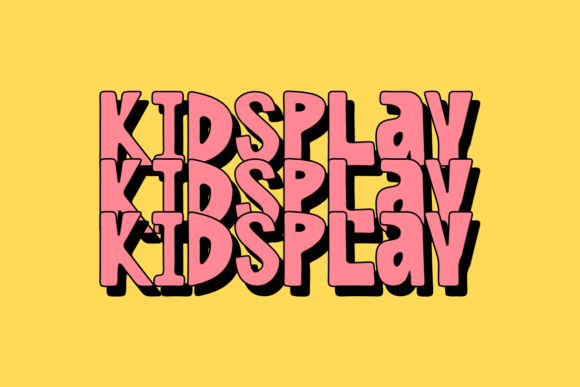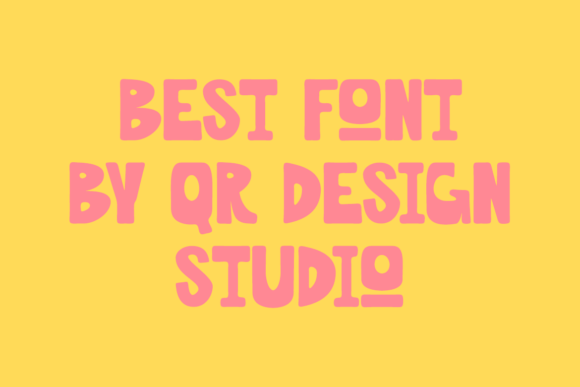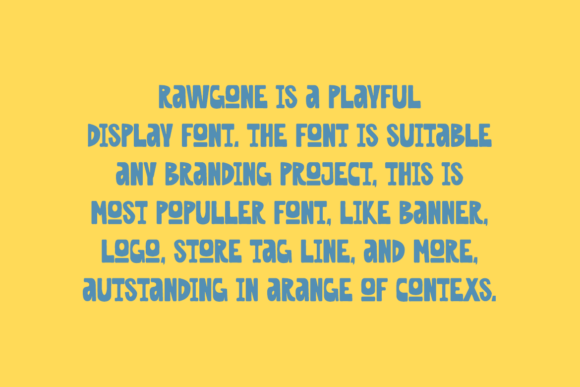
Introduction to Rawgone Font
Do you remember the moment when you first decided to create something truly unique and engaging? For many designers, it’s a spark that ignites a creative project, full of possibilities and endless imagination. If you’re working on a project that requires a touch of playfulness and energy, you’re in luck. Introducing the Rawgone Font, a comic and kids font designed to bring a smile to your audience’s faces.
Perfect for cartoon titles, children’s books, games, and fun packaging, the Rawgone Font is a game-changer for designers looking for a high-quality design resource. With its round and friendly shape, this font is sure to add a touch of whimsy to any project. Whether you’re working on a free download or a commercial design, the Rawgone Font is a valuable asset that will help you stand out from the crowd.
Key Features of Rawgone Font
- High-quality design resource ideal for creative projects, offering a unique and stylish look.
- Features a clear and legible design, with a resolution of 300 DPI for high-quality printing and digital use.
- Supports multiple font sizes and styles, making it a versatile choice for various creative projects.
- Designed to be scalable, ensuring it looks great in both small and large font sizes.
Honest Review: Rawgone Font
As a designer, I’m always on the lookout for high-quality fonts to elevate my creative projects. Recently, I stumbled upon the Rawgone Font, and I’m excited to share my honest review.
What works well about the Rawgone Font is its versatility. It’s perfect for use on a transparent background, allowing the design to shine. The font also comes with a free download option, which is a huge plus for designers on a budget. Additionally, the font’s clean and modern aesthetic makes it a great choice for a variety of design projects.
- ✨ Clean and modern aesthetic
However, I did encounter a few limitations. The font could benefit from more character sets and language support. Additionally, the font’s weight range is limited, which might not be ideal for designers who prefer a more extensive range of weights.
- ⚠️ Limited weight range
Overall, I’m impressed with the Rawgone Font, and I would definitely recommend it as a design resource for creative projects. While it has its limitations, it’s a high-quality font that’s perfect for designers who want a clean and modern aesthetic.
The Rawgone Font is a high-quality, free download design resource ideal for creative projects. With its unique design and transparent background, it can be used in a variety of applications.